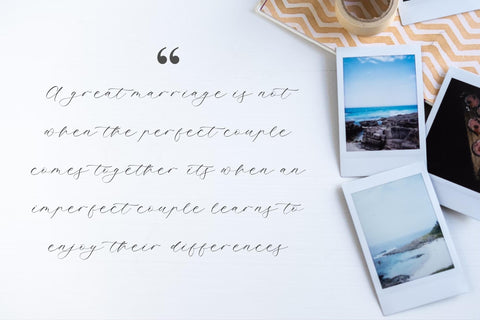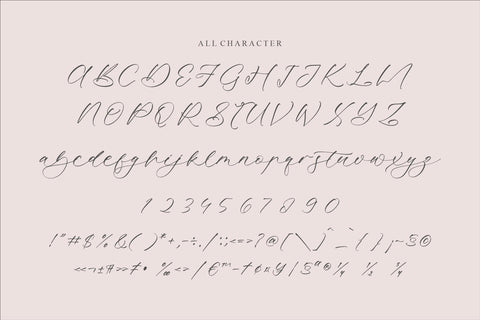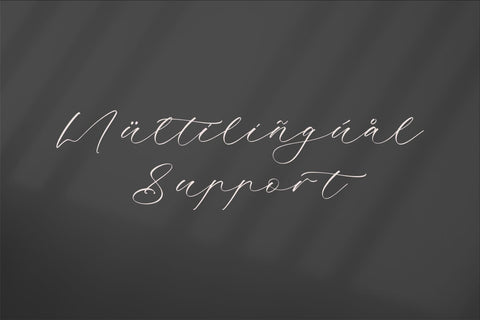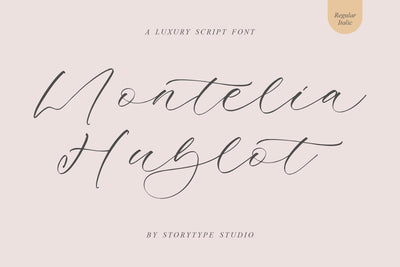
Montelia Hublot - Luxury Script Font
Proudly present Montelia Hublot - Luxury Script Font , created by Storytype,
A luxury script that has own unique style & modern look.